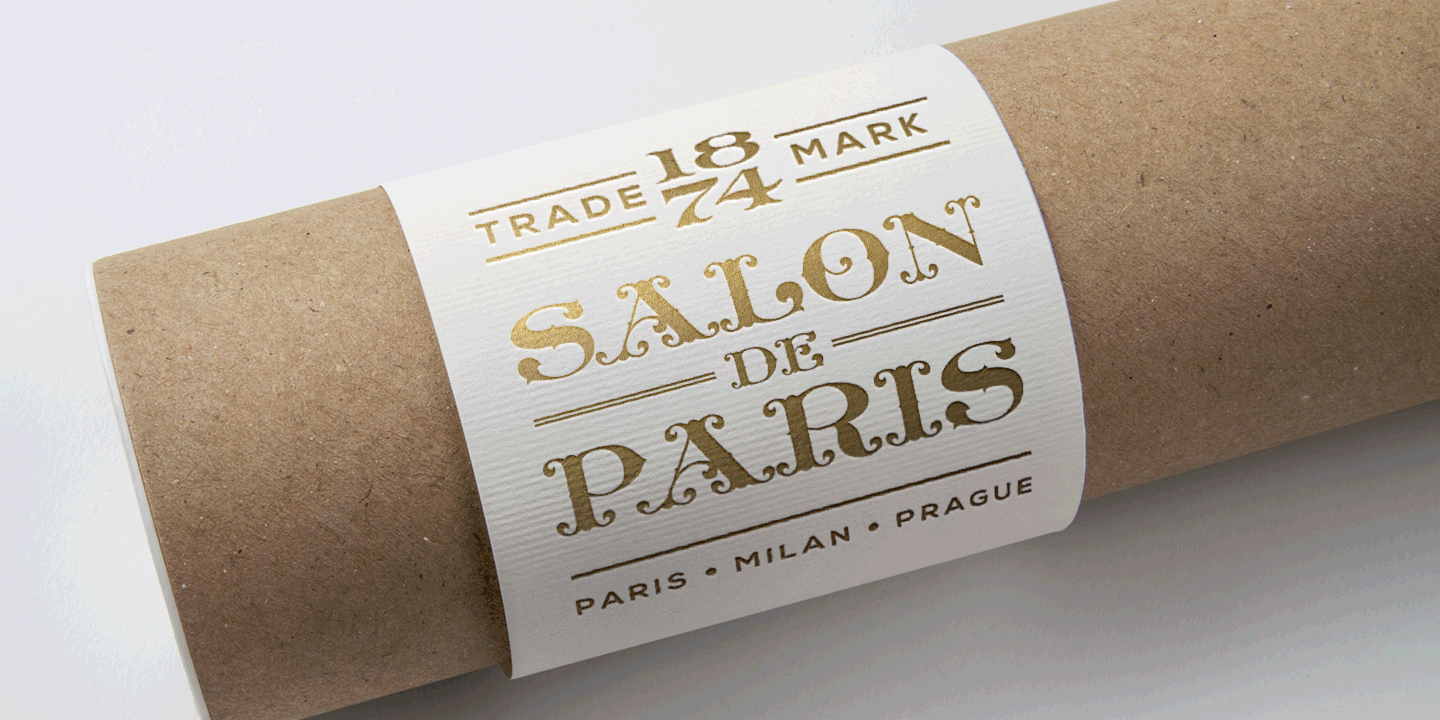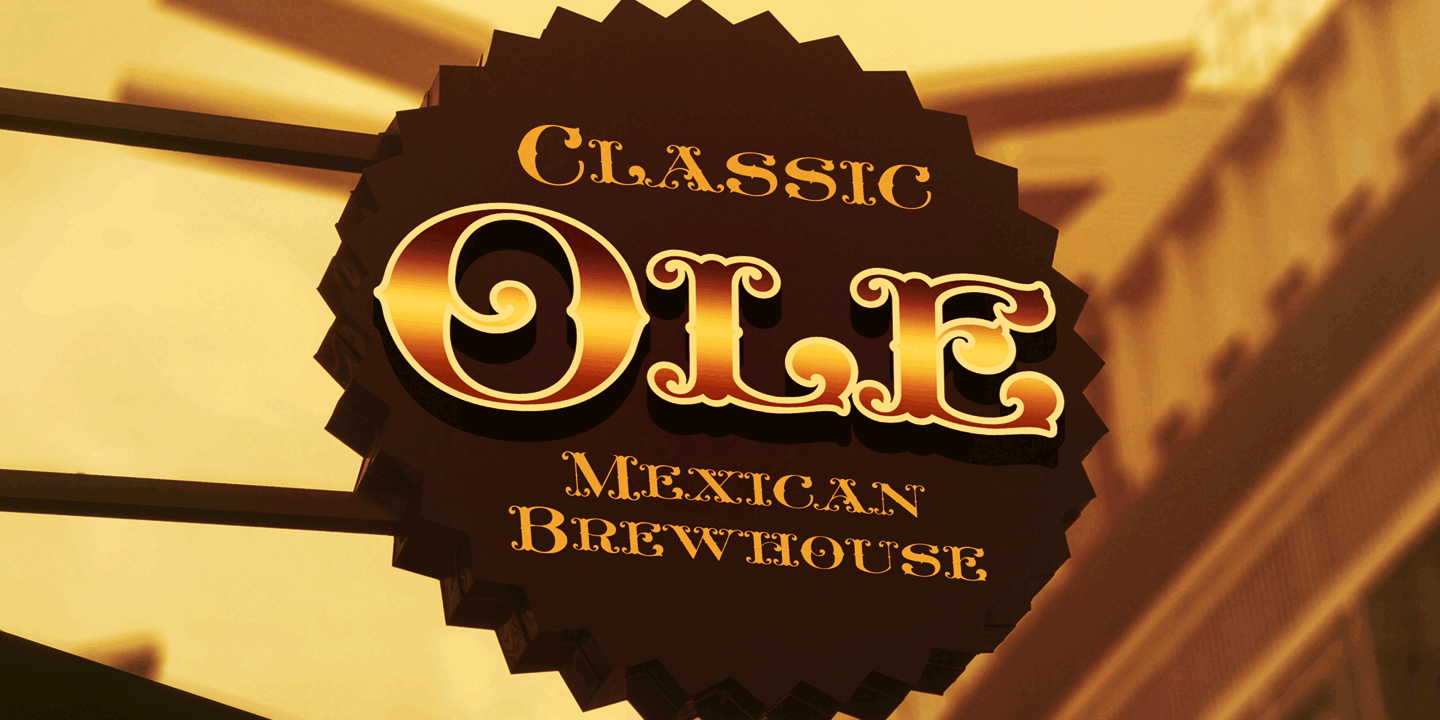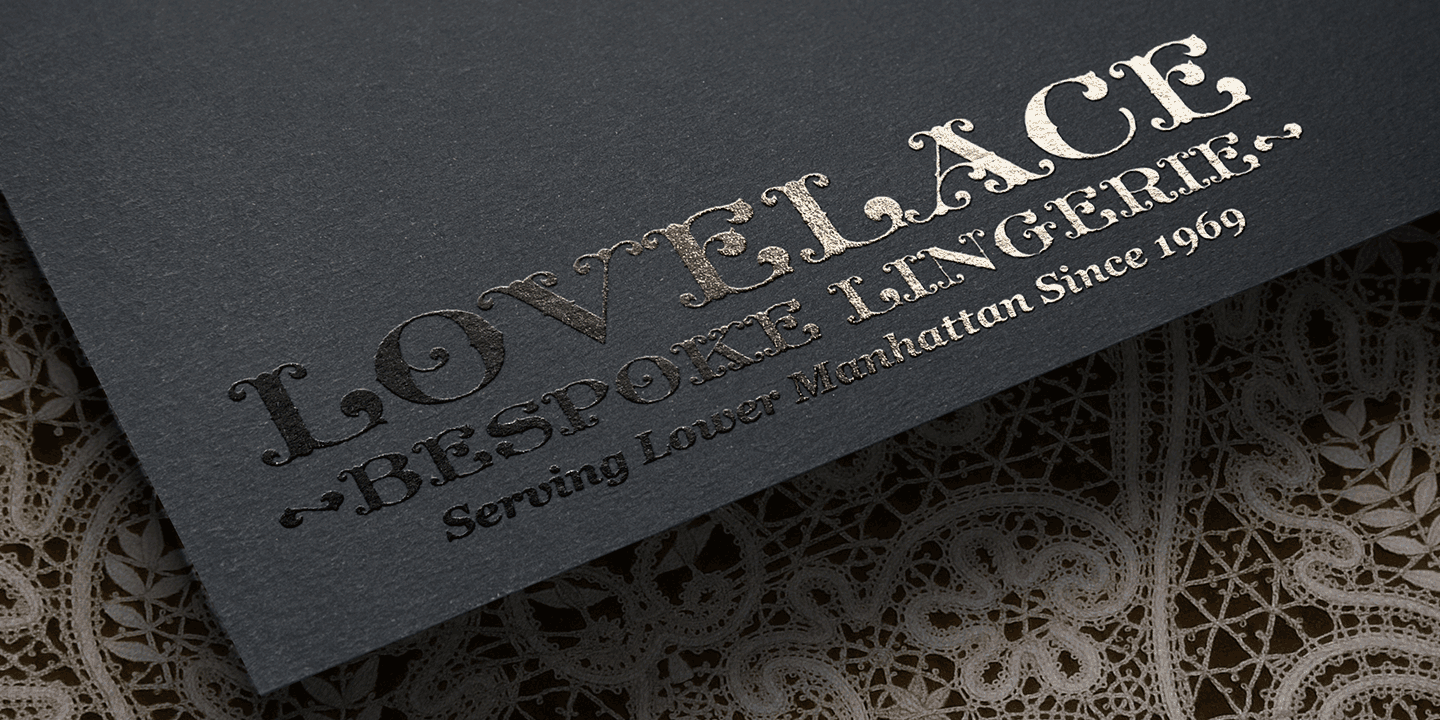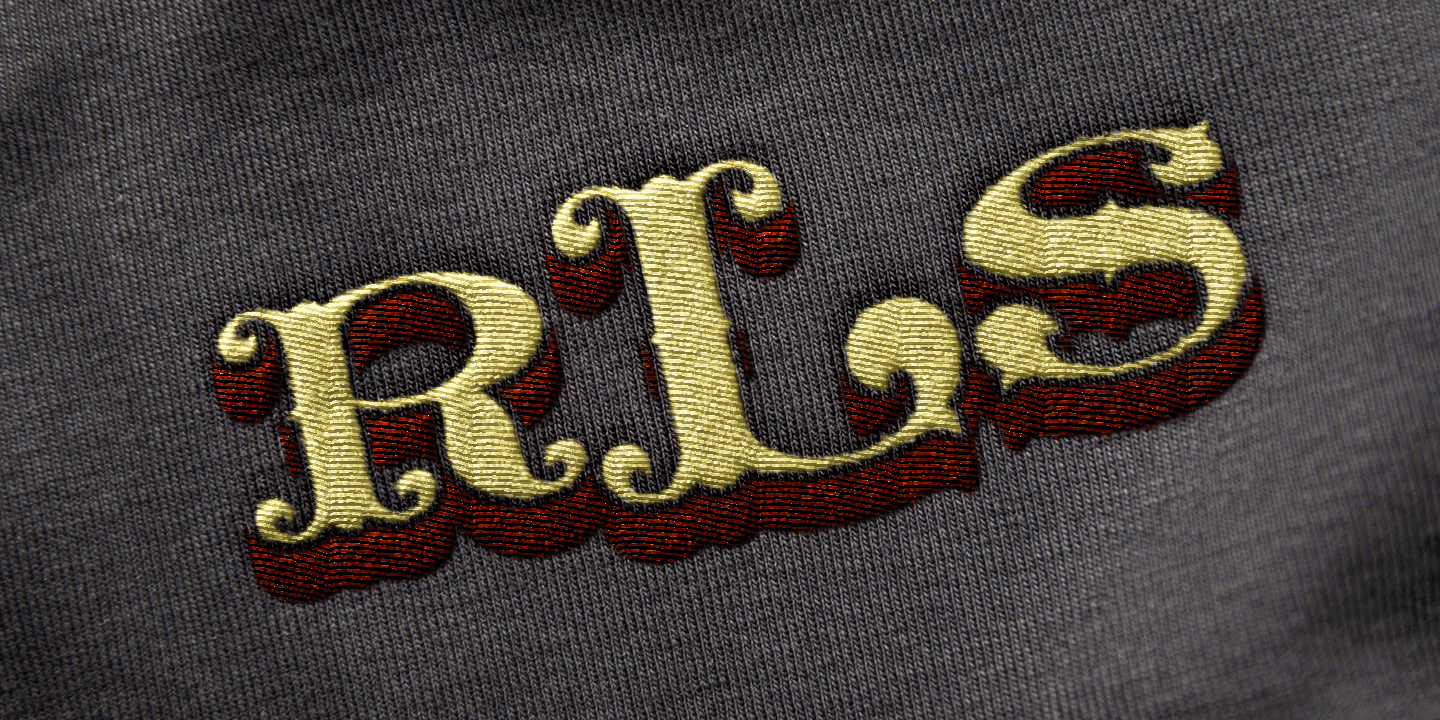
MFC Livermore Monogram
Font Family by Monogram Fonts Co
The source of inspiration for MFC Livermore Monogram is a wonderfully ornate lettering style recreated from the pages of Charles J. Strong's "The Art of Show Card Writing" of 1907. We've expanded the original Capitals & Numbers glyphset to include smallcaps to make monograms, and have added a few unique ornamentations for basic titling typesetting. Due to its sign painter personality, we also gave it layers of dimension.